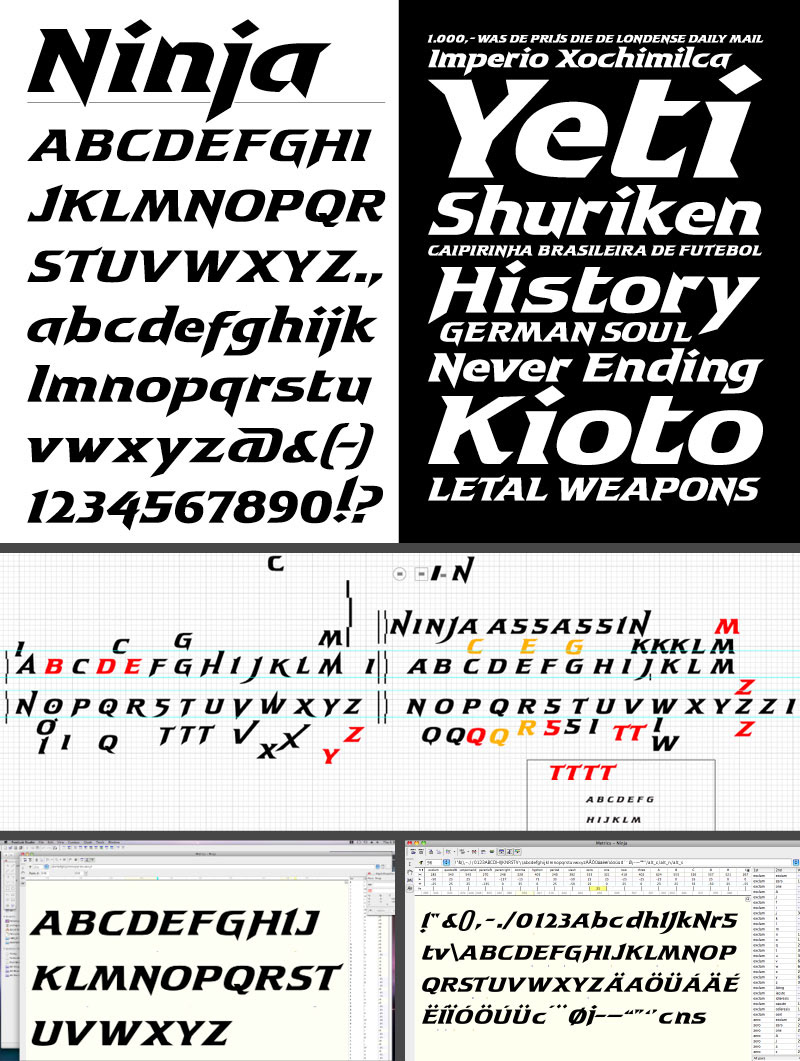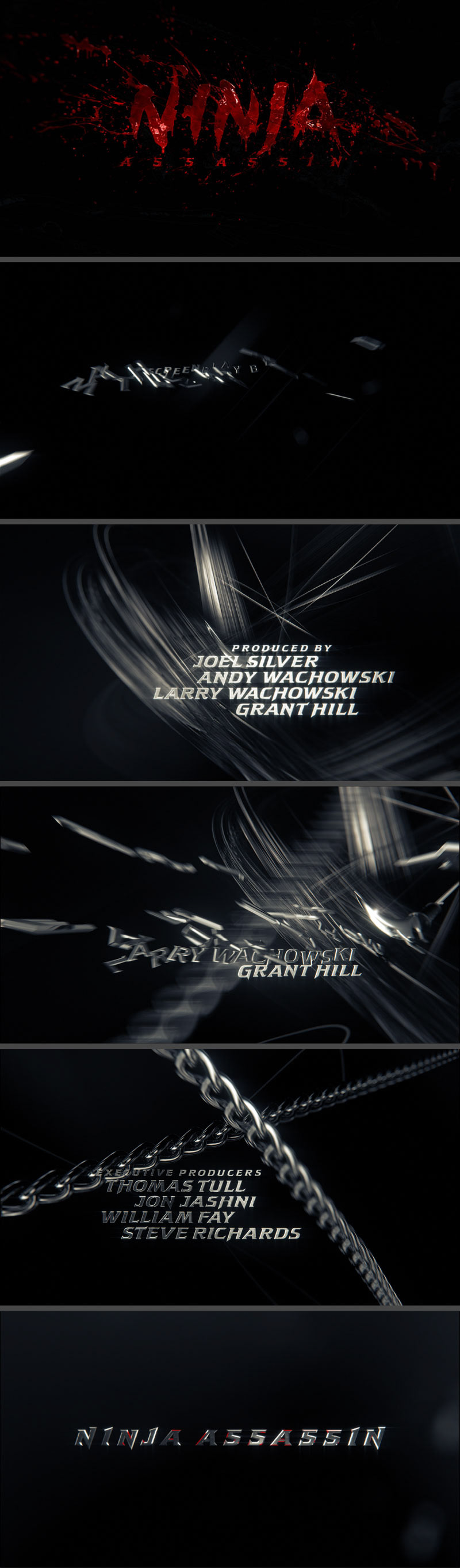
Ninja was a custom font designed for the Title credits (Main Titles, Main on end titles, End crawl, and marketing purposes too) for the movie Ninja Assassin.
Ninja was designed with the amazing creative director Heebok Lee in Prologue Films.